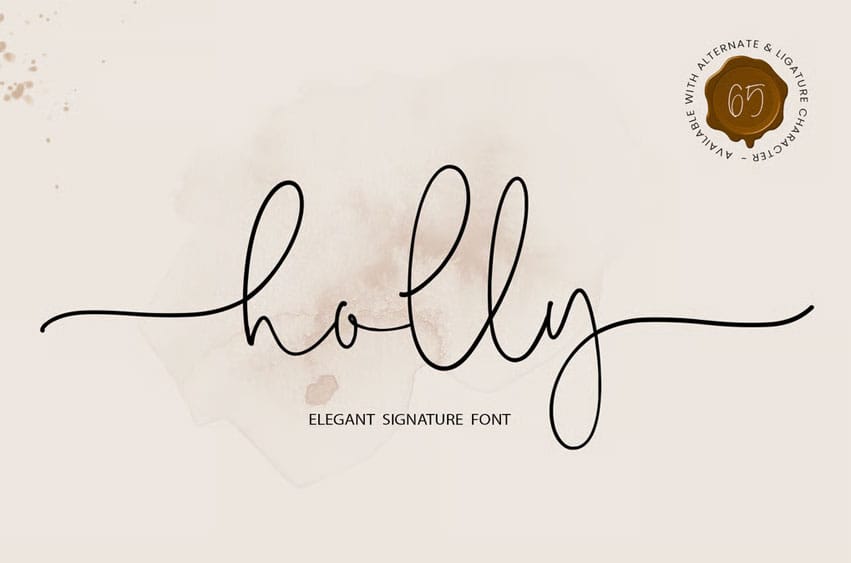
Holly Font Signature Font is a modern handwritten script designed to capture the essence of elegance and sophistication. Its flowing strokes and refined curves mimic natural handwriting, creating a graceful signature style that adds an elevated touch to branding, invitations, and creative projects.
With its smooth and stylish design, this font is ideal for wedding stationery, luxury logos, social media graphics, and product packaging. The delicate balance between casual handwritten charm and professional aesthetics makes it versatile for both formal and artistic purposes.
This Font adapts beautifully to seasonal and event-driven designs, from spring and summer weddings to autumn gatherings and winter celebrations. Its timeless appeal enhances everything from romantic greeting cards to festive holiday crafts, ensuring designs remain graceful across occasions.
Perfectly suited for DIY projects, Cricut designs, embroidery, and digital lettering, the font offers flexibility across both print and digital formats. The signature-style flow ensures readability while delivering a distinctive, stylish finish that sets projects apart.